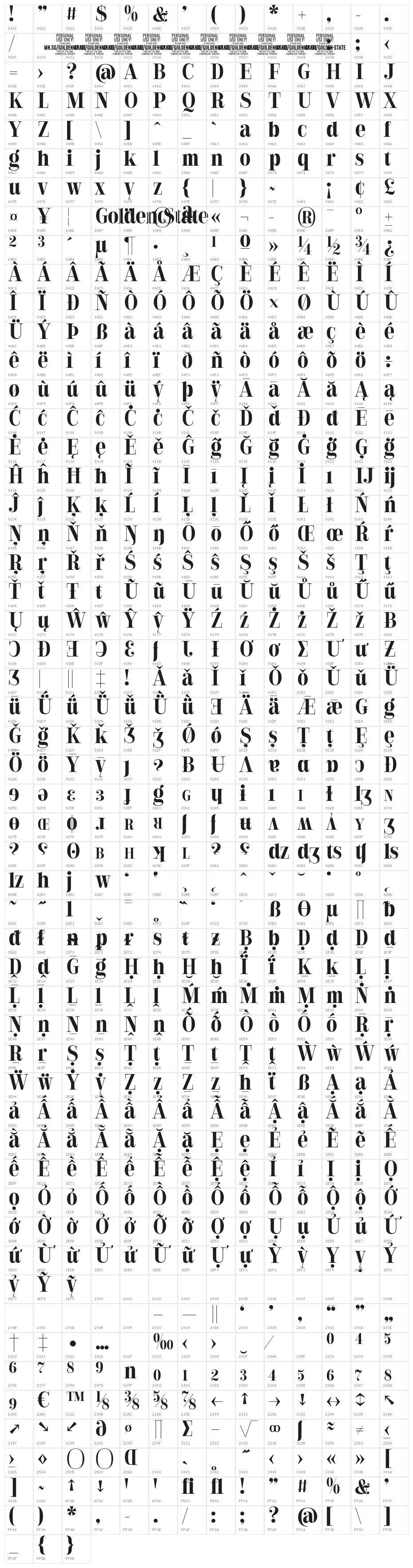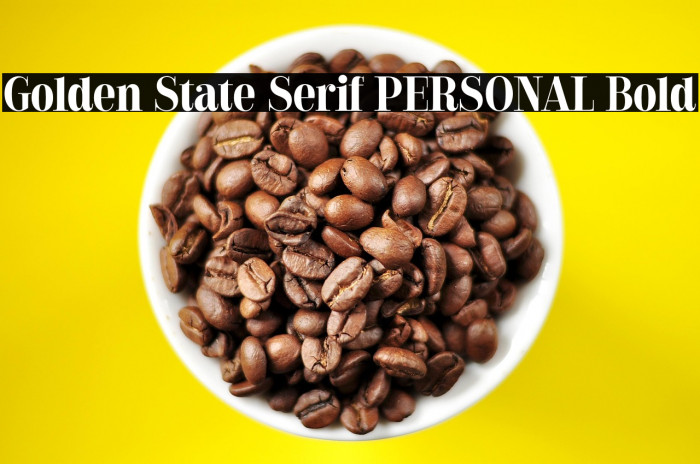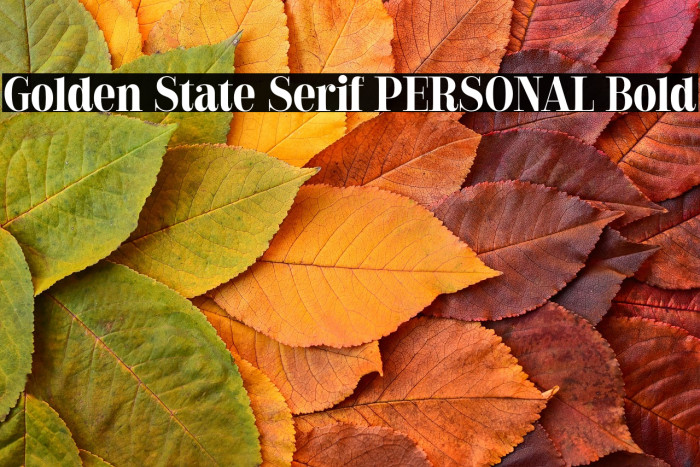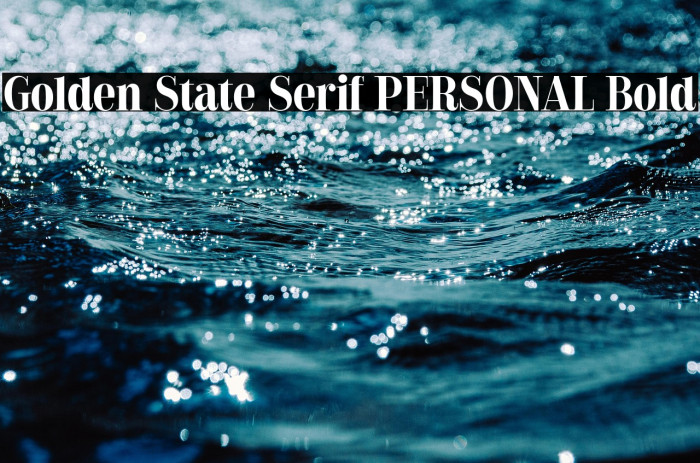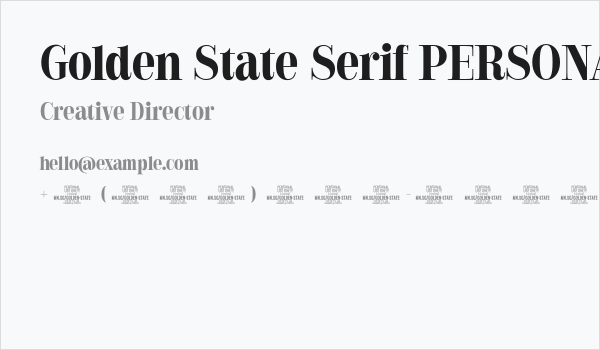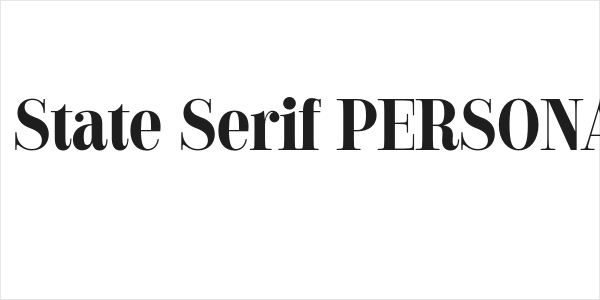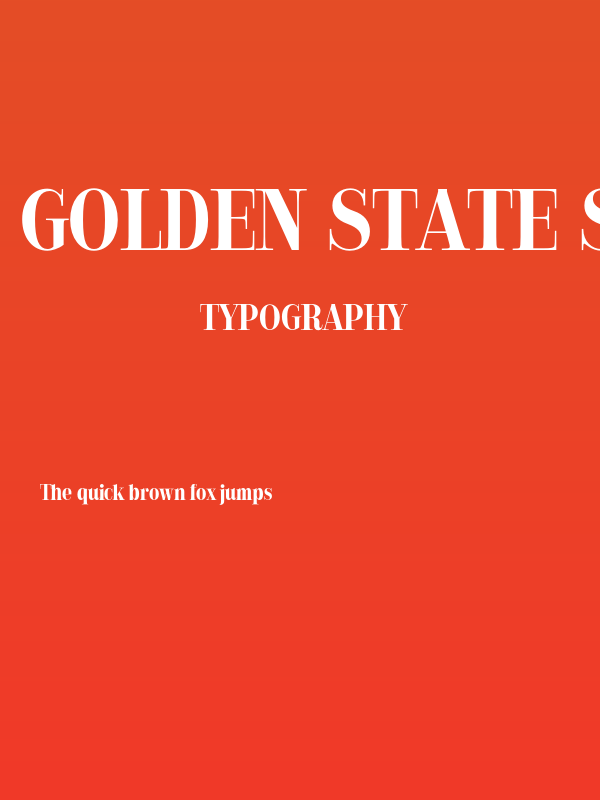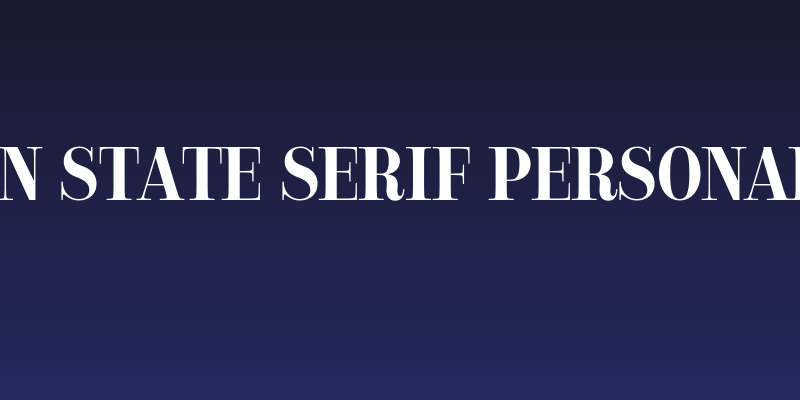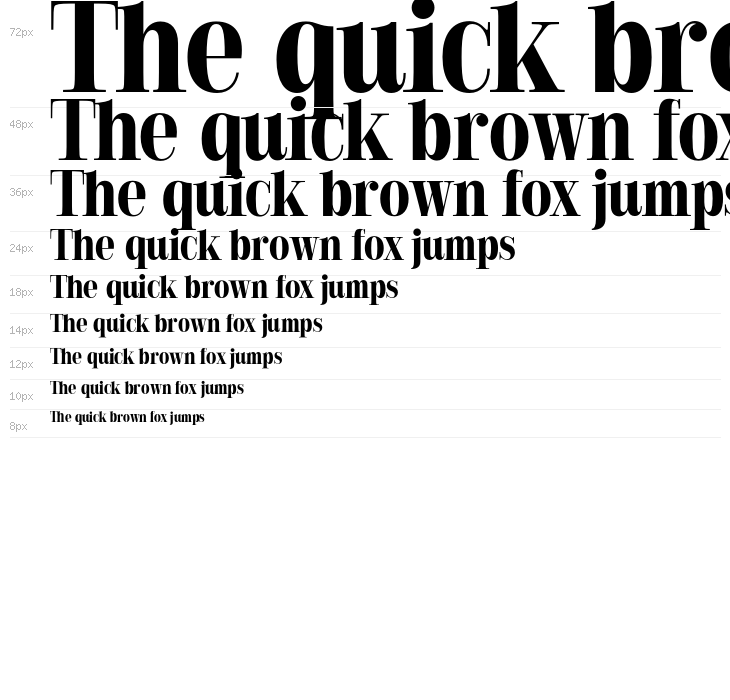
Golden State Serif PERSONAL Bold Font
Golden State Serif PERSONAL Bold Description
This font features a bold and commanding serif style, characterized by strong vertical lines and pronounced serifs. The uppercase letters are tall and elegant, while the lowercase letters maintain a consistent weight, offering a harmonious balance. The numerals are clear and distinct, with a classic touch that complements the overall design. Special characters are designed with the same boldness, ensuring they stand out effectively. The font's high contrast between thick and thin strokes adds to its dramatic and sophisticated appearance, making it suitable for impactful design projects.
| Proposed Projects | Ideal for headlines, branding, editorial design, and luxury product packaging. |